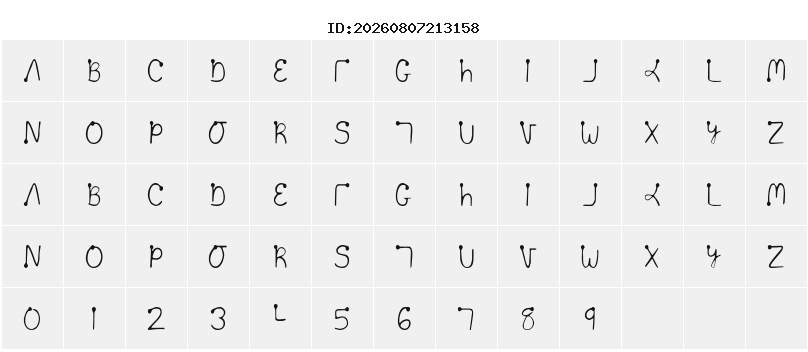
pagra Preview
• Font Name: pagra
• Full Font Name: pagra
• PostScript Name: Pagra
About pagra.ttf
pagra.ttf is a modern, elegant sans-serif font designed for ultimate readability and visual harmony. Perfect for branding, headlines, web design, and print materials.